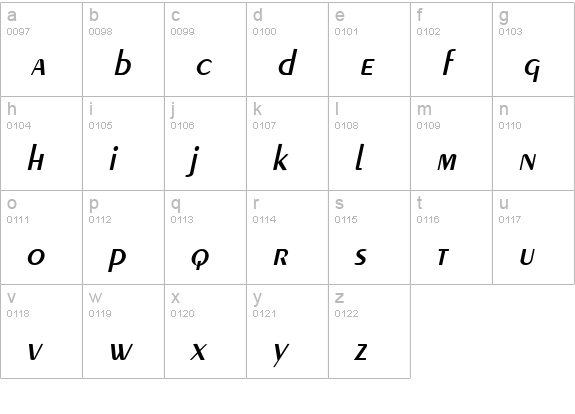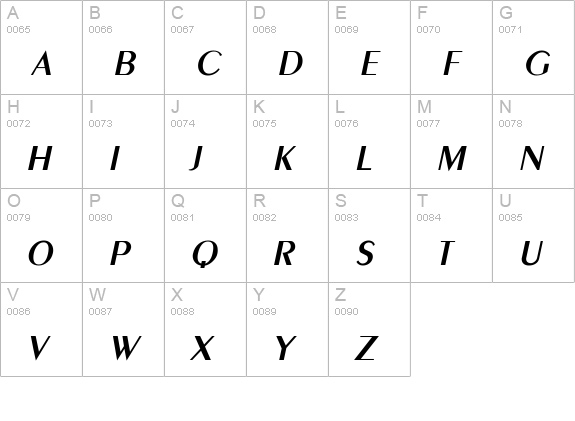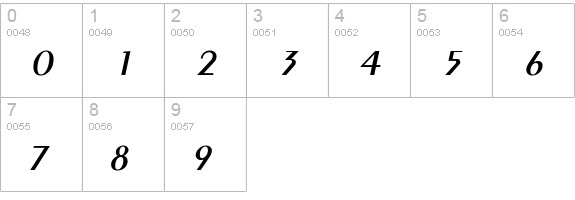
Penyae Italic is a distinctive, italic variant in the Penyae typeface family \xE2\x80\x94 well suited to design and typography projects.
Introducing Penyae Italic, a stylish and elegant font that is sure to captivate your audience. With its exquisite curves and sleek design, Penyae Italic adds a touch of sophistication to any project. Whether you're creating a logo, designing a website, or crafting a beautiful invitation, this font is guaranteed to make a lasting impression. What sets Penyae Italic apart is not only its impeccable aesthetics but also its versatility. This font effortlessly adapts to various styles and contexts, making it perfect for both professional and creative endeavors. Its slanted and italicized letterforms exude a sense of dynamism and fluidity, adding a unique flair to your designs. Penyae Italic is not just visually stunning, but it also offers ease of use. Its carefully crafted letterforms ensure optimal legibility, making it a practical choice for both large and small text sizes. Whether you're working on a bold headline or a delicate paragraph, Penyae Italic maintains its readability, ensuring that your message is communicated effectively. One of the most enticing aspects of Penyae Italic is that it is freely available to download at FontsMarket.com. This means that you can access this exquisite font without any cost, making it an invaluable resource for designers, students, and anyone looking to add a touch of elegance to their projects. With just a few clicks, you can elevate your designs and unleash your creativity with Penyae Italic. So why wait? Embrace the beauty and versatility of Penyae Italic and let your designs speak volumes. Download this remarkable font today at FontsMarket.com and unlock a world of endless possibilities.